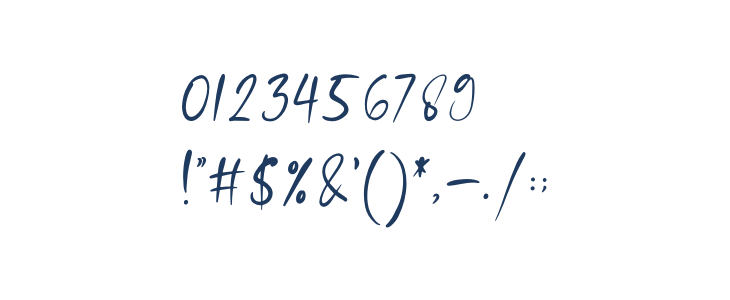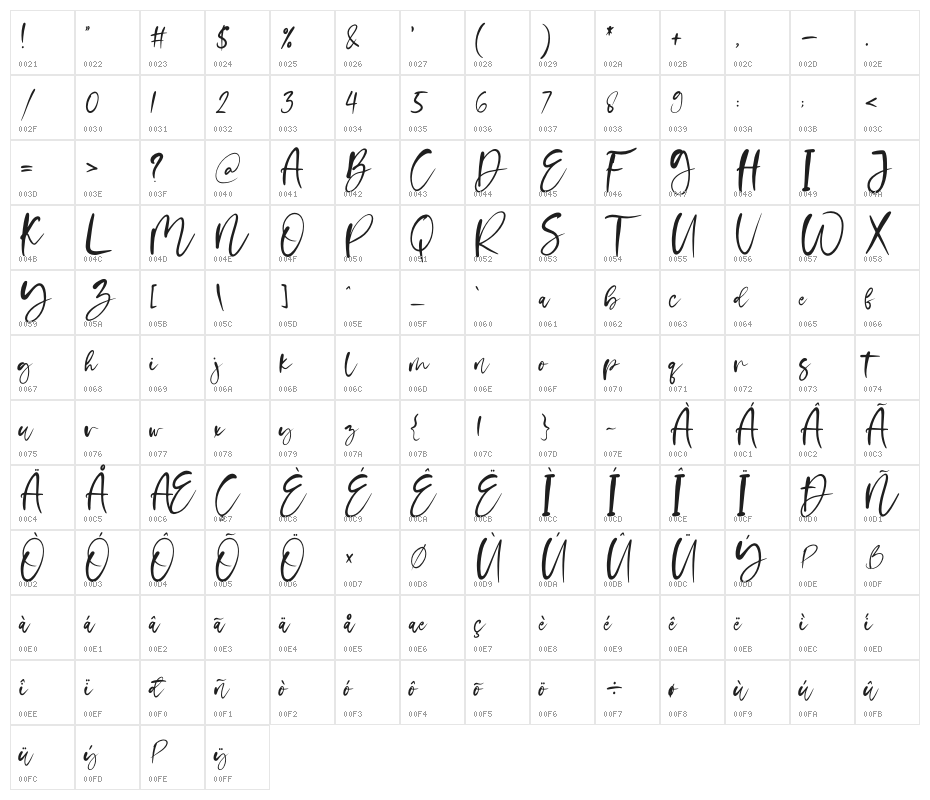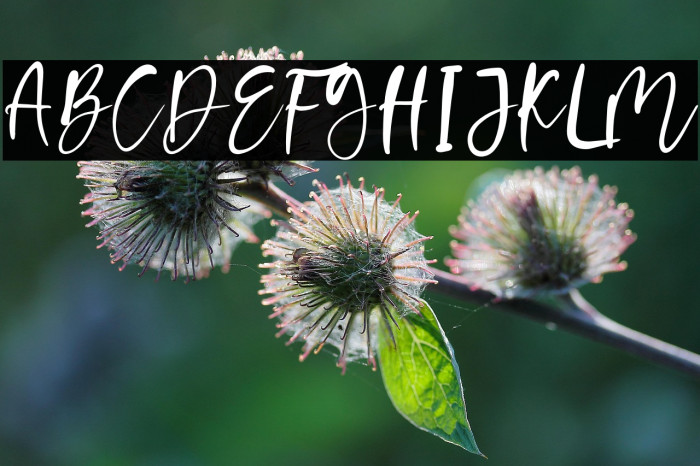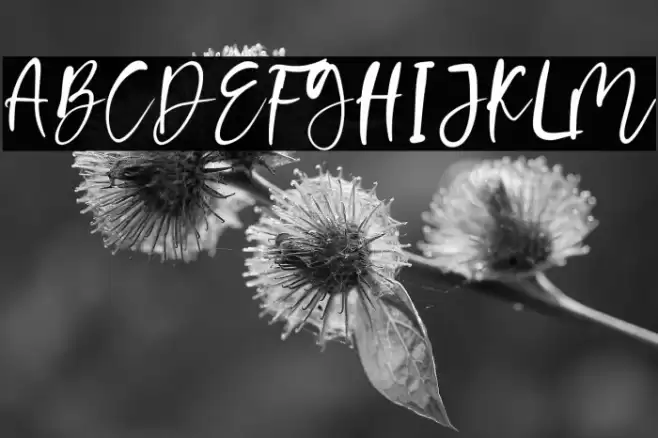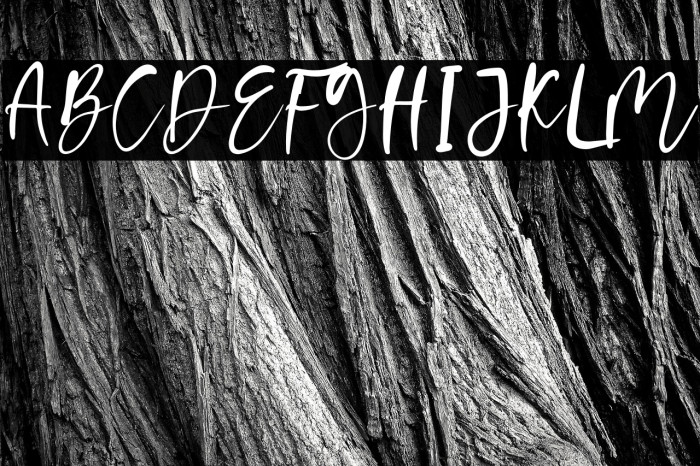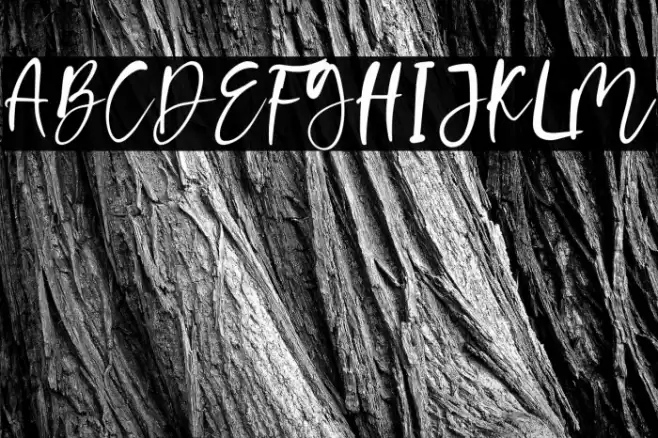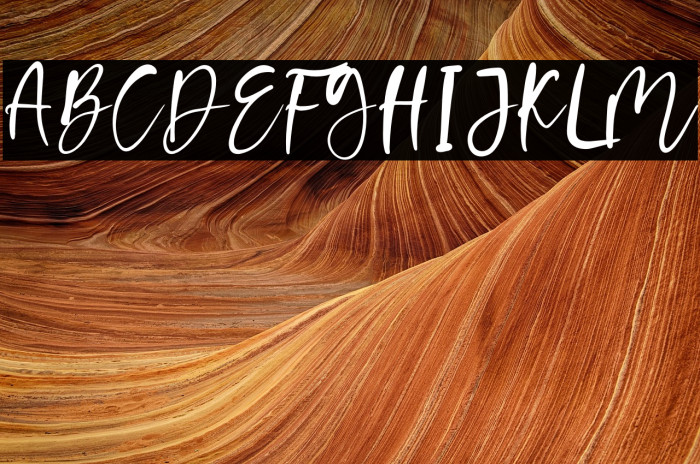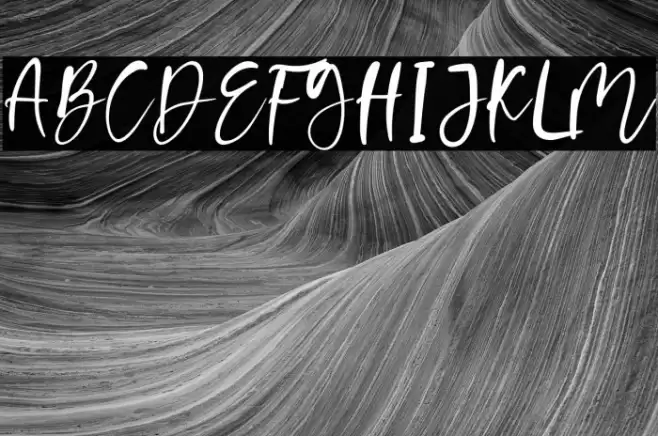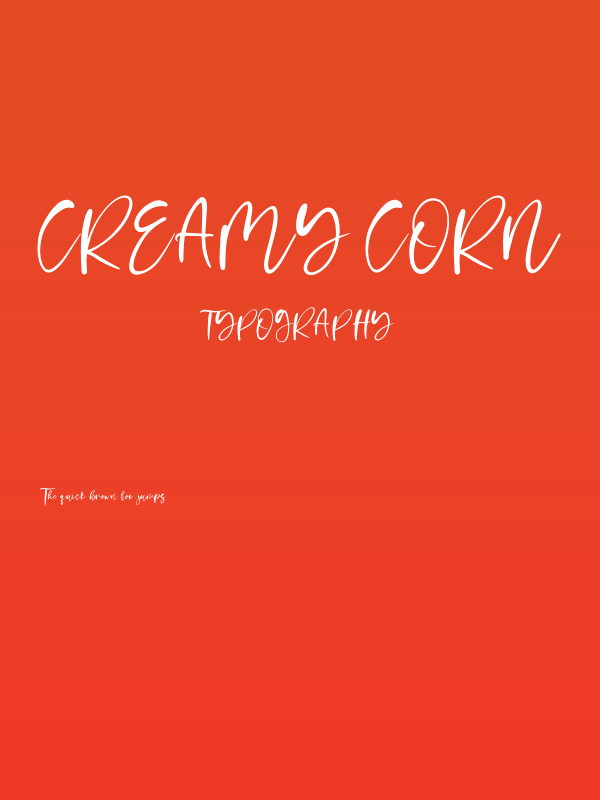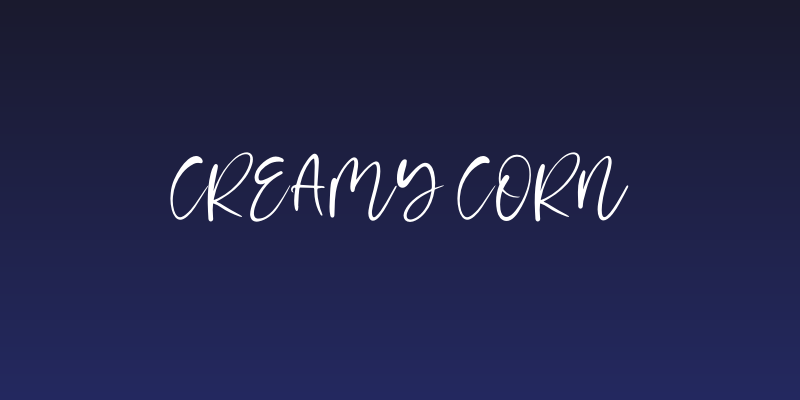
Creamy Corn Font
Creamy Corn Description
This font exudes a lively and expressive character, with its flowing, cursive script style. The letters are connected in a smooth, continuous manner, giving it a handwritten feel. The strokes vary in thickness, adding a dynamic and artistic flair. The uppercase letters are bold and prominent, while the lowercase letters maintain a consistent flow, enhancing readability. The numerals and special characters are crafted with the same attention to detail, ensuring a cohesive look across all elements. This font is perfect for projects that require a personal touch, such as invitations, greeting cards, or branding materials that aim to convey elegance and creativity.
| Proposed Projects | Ideal for invitations, greeting cards, branding, and any project needing a personal, elegant touch. |